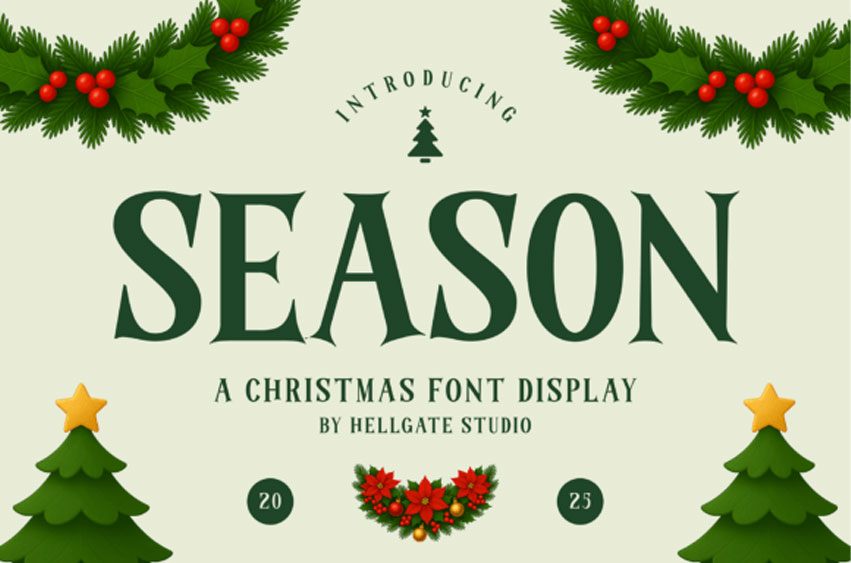
Season Christmas Font
Season Christmas Font is a Christmas display serif font combining classic letter proportions with refined, pointed serifs.
Its tall, elegant structure and balanced contrast evoke traditional holiday sophistication while maintaining strong modern readability. The font’s clean lines and symmetrical form make it ideal for premium Christmas layouts.
Season works perfectly for festive headlines, branding, product packaging, and elegant holiday greetings. Its timeless aesthetic allows designers to craft compositions that feel celebratory yet polished, giving every project a professional and graceful Christmas spirit.